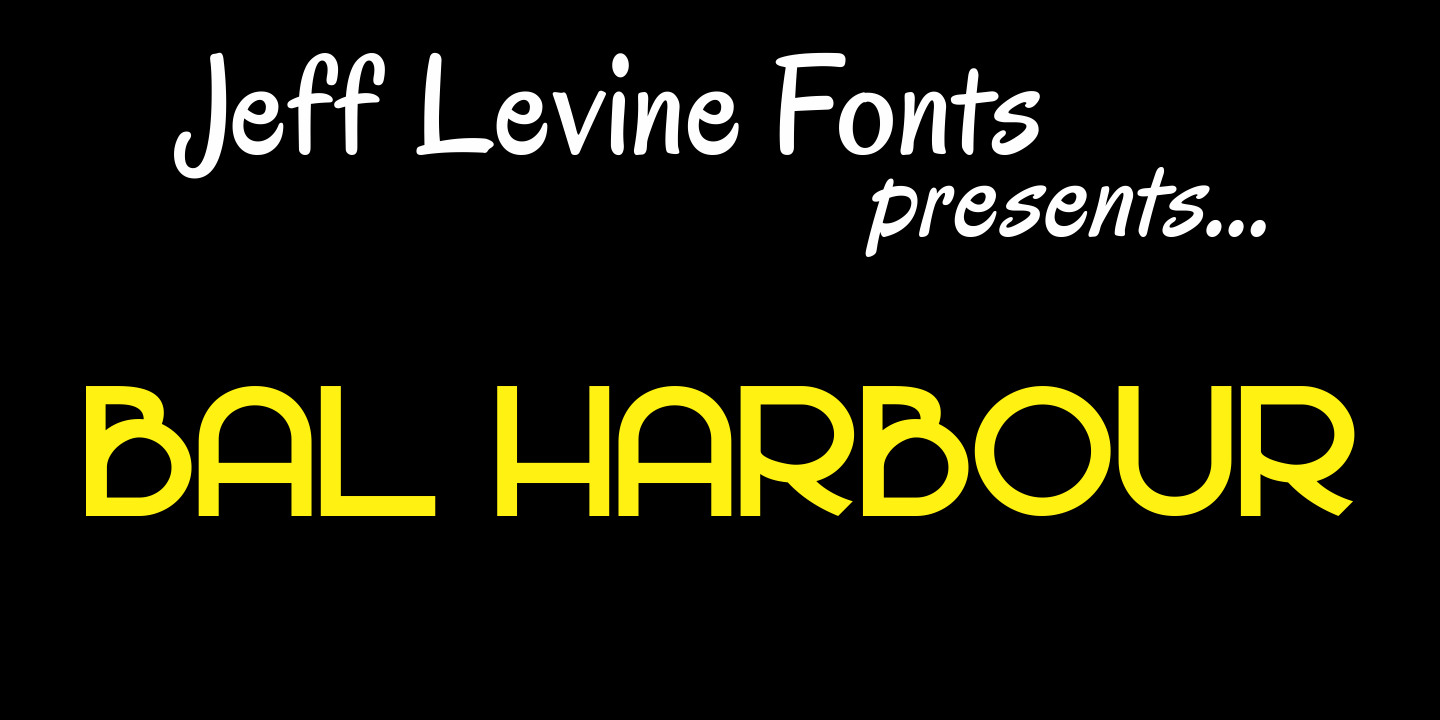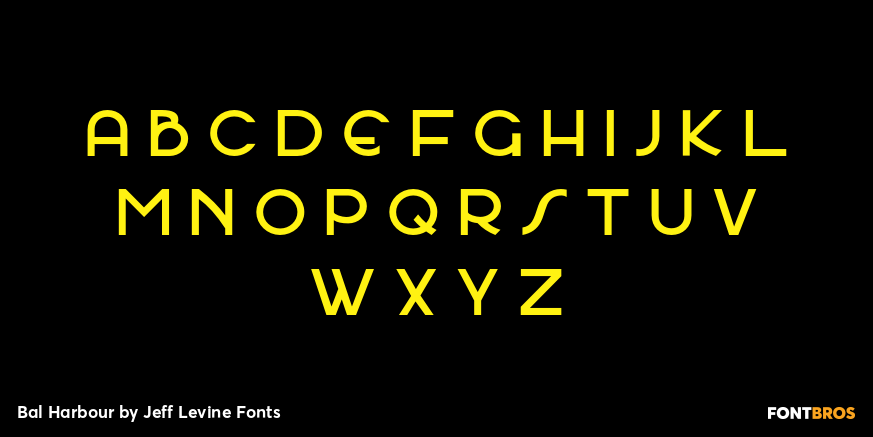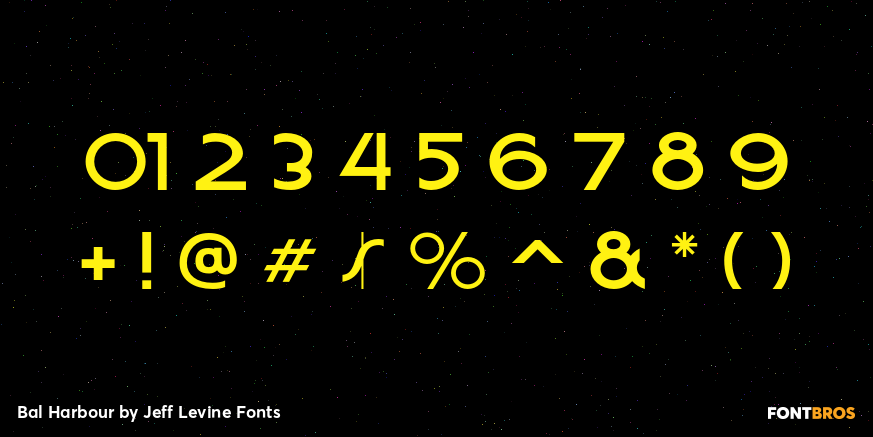
Bal Harbour
Inspired by hand lettering on a 1940s toy game spotted on ebay called "Let's Go Shopping", Jeff Levine created "Bal Harbour JNL" and named it after a South Florida community famous for its luxury homes and trendy stores.